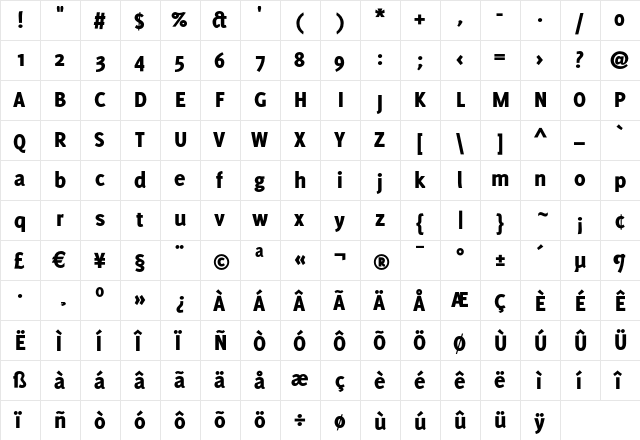
Delicious Heavy
Design Context for Delicious Typeface
Delicious takes a measured approach to typography — its balanced proportions and neutral character make it a reliable workhorse for both digital and print work.